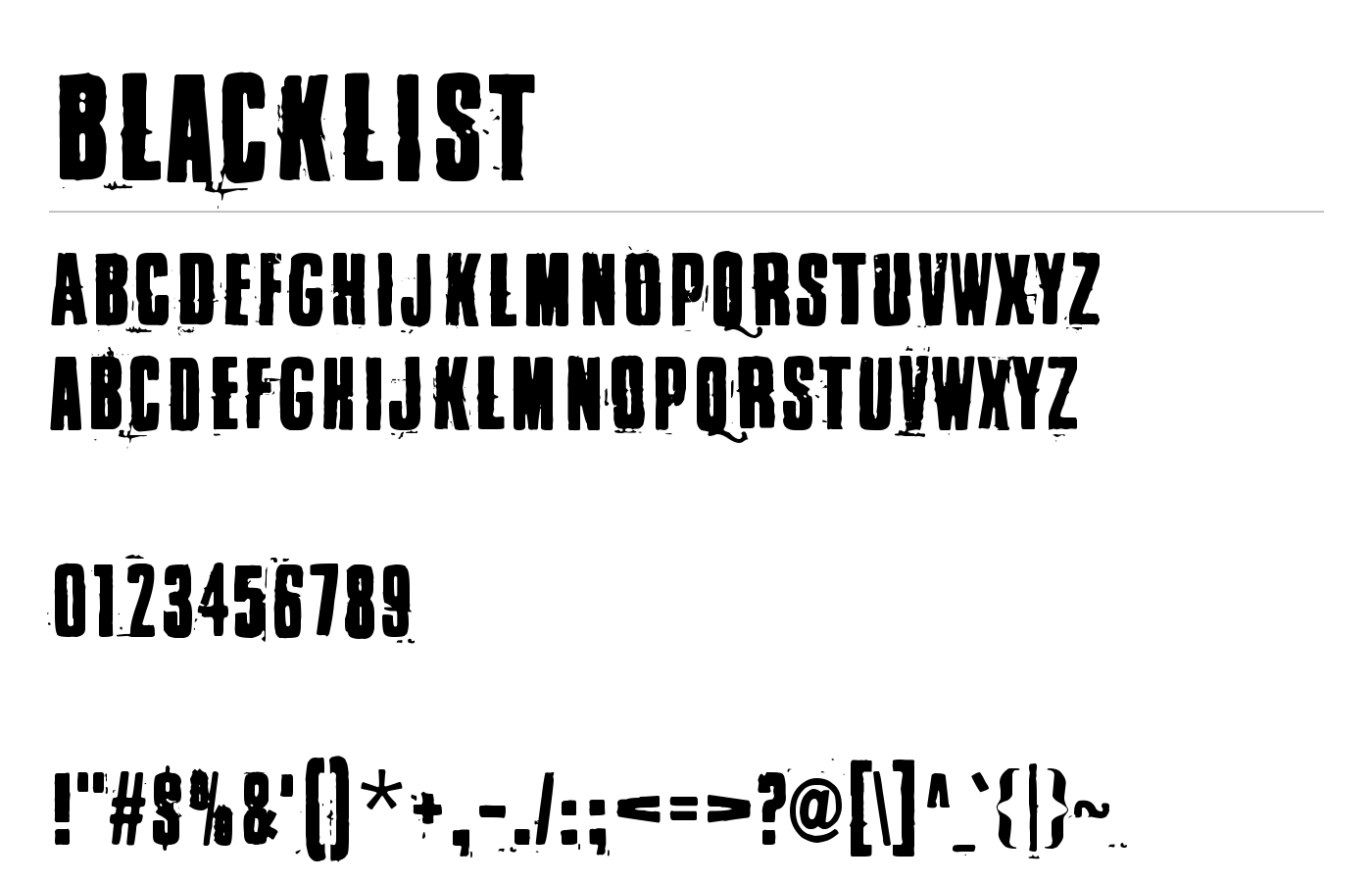
Blacklist Font is a bold, condensed sans serif with a distressed, grunge texture giving it a raw and edgy character. Its strong, blocky letterforms and rough imperfections create a striking impact, making it ideal for edgy posters, alternative branding, or urban-themed designs that want to convey toughness and attitude. This font works best where a bold statement and a rebellious vibe are desired.
Blacklist Font